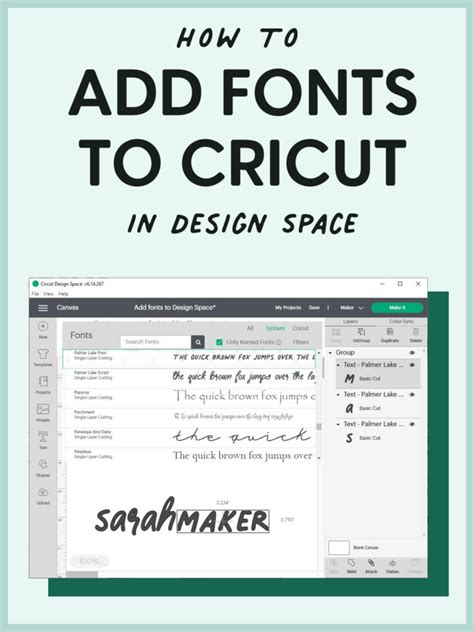
Mastering the Art of Typography: A Guide to Adding Fonts to Your Cricut Design Space
Typography is a crucial element in any design, and adding different fonts can make a significant impact on how your project looks. But how do you add fonts to your Cricut Design Space? Don't worry; we've got you covered with this guide to mastering the art of typography.
Are you tired of using the same old fonts on your projects? Adding new fonts to your Cricut Design Space can give your projects a fresh and unique look that sets them apart from the rest.
Did you know that there are thousands of free fonts available online that you can use with your Cricut machine? With just a few clicks, you can download and install new fonts that can take your designs to the next level.
But hold on- before you start downloading every font you see, it's essential to understand the basics of typography and how to choose the right font for your project. Our guide covers everything you need to know about typography, including font families, styles, and pairing fonts harmoniously.
With our step-by-step instructions, you can easily install fonts and use them in your Cricut Design Space without any hassle. Whether you're a beginner or an experienced crafter, our guide has got something for everyone.
So what are you waiting for? If you want to take your Cricut projects to the next level, read our guide to mastering the art of typography today!
By following our tips, you'll be able to impress your clients or friends with your creative designs. The possibilities are endless when it comes to typography, and this guide will help bring your ideas to life.
Don't let boring fonts hold you back. Unlock the full potential of your Cricut machine by adding new fonts and mastering the art of typography today. Your projects will thank you for it!
Typography is more than just picking a pretty font. It's about choosing the right typeface that can convey the intended message effectively. As an artist, designer, or crafter, it’s essential to master the art of typography to elevate the artistic quality of your work. If you're a Cricut user, you're probably wondering how to add fonts to the Design Space. In this guide, we’ll take you through everything you need to know about using typography in Cricut Design Space.What is Typography?
Typography is the art and technique of arranging type to make written language readable and appealing when displayed. Typography involves not only selecting the right font but also setting letters, spacing, line length, and adjusting the space between paragraphs. Good typography enhances readability while poor typography can make it difficult to read resulting in a poor user experience.The Importance of Typography in Art and Design
Typography is an essential component of visual design elements that artists and designers use to convey their message appropriately. It communicates mood, tone, and emotion through various design principles. Typography also brings hierarchy to your design by showing your audience what information is most important.How to Choose Fonts for Your Design Space
With so many different options of fonts to choose from, it's easy to get confused about which one to use. However, it all comes down to the message you want to convey. You should prioritize legibility and readability over aesthetic appeal. Choosing the wrong font can impact the overall style of your design in different ways.Sans-serif vs Serif Fonts
The two main categories of fonts are serif fonts and sans-serif fonts. Serif fonts have small strokes (serifs) at the end of the letterform, while sans-serif fonts don’t. Serif fonts are generally used for print and body copy, while sans-serif fonts are more prominent for readability on digital devices.Script Fonts
Script fonts are decorative fonts that mimic handwriting or calligraphy. They're used for text that needs a personal touch or elegance, such as invitations or inscriptions, but they can be difficult to read in body copy or smaller sizes.Display Fonts
Display fonts include bold, decorative, and unconventional typefaces that catch attention. These fonts can make an impact in headlines, banners, or titles, but they’re not ideal for body text because they can be hard to read in long paragraphs.Cricut Design Space Fonts
Cricut Design Space has a wide variety of fonts to choose from. You can explore Cricut fonts under the System or Cricut category, or you can upload your own fonts. There are also free and paid fonts available in the Cricut Library or different online platforms that are compatible with Cricut Design Space.How to Add Fonts to Cricut Design Space
For those who want to add custom fonts to Cricut Design Space, this is a quick and easy process. First, find a font you like and download it to your computer. Then, double-click the downloaded file and click on the install button. The new font will now be available in Design Space.Conclusion
To add fonts to Cricut Design Space, you first need to install them on your computer. Once they are installed, they will automatically appear in Design Space. To access them, simply click on the text tool in Design Space and select the font you want to use from the drop-down menu.